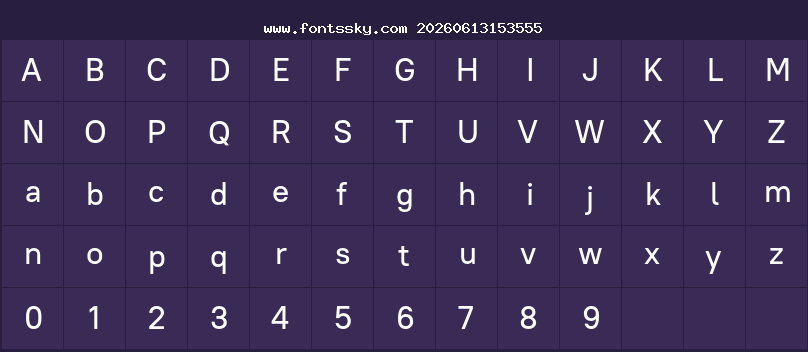
• Font Name: PT Root UI Medium
• Full Font Name: PT Root UI Medium
• Designer: Vitaly Kuzmin
• Manufacturer: ParaType Ltd.
• Description: PT Root UI is a special part of the PT Root typeface family. It consists of four styles of normal proportions, from Light to Bold, intended for screen reading, interfaces, websites, as well as wayfinding systems. PT Root UI is a modern uniwidth sans serif whose individual character widths are constant across all weights. This is especially convenient for headers, menu bars and interface elements. It has a broad language support, including the Latin Extended and Cyrillic (including Cyrillic Asian), different sets of figures and currency signs, fractions and indices, as well as a number of wayfinding signs and alternative forms. PT Root UI was designed by Vitaly Kuzmin and released by Paratype in 2018.
PT Root UI Medium.otf is a modern, elegant sans-serif font designed for ultimate readability and visual harmony. Perfect for branding, headlines, web design, and print materials.